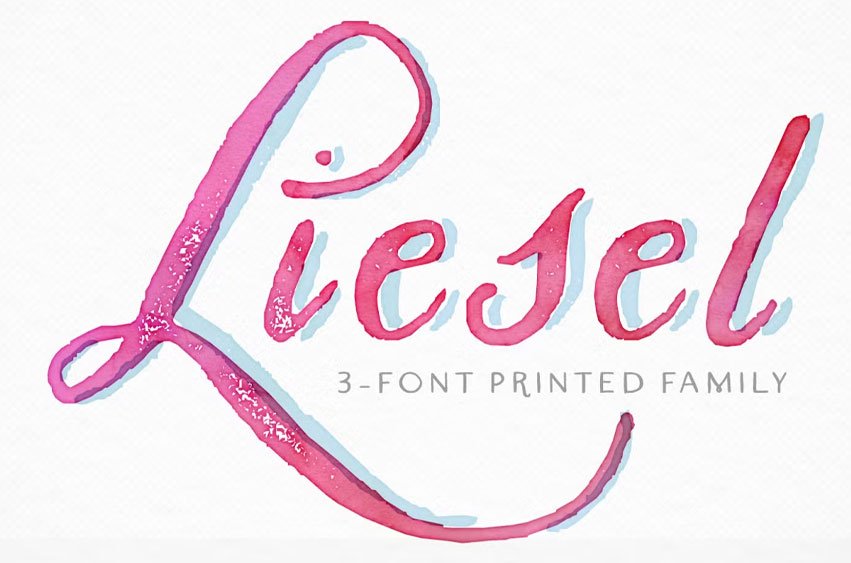
Liesel Printed Font is highly detailed, distressed font family is made for layering! Experiment with layering and blending modes to create realistic letterpress and screenprint text.
• Opentype features include: contextual alternates, stylistic alternates, swashes, true fractions, and old style numerals.